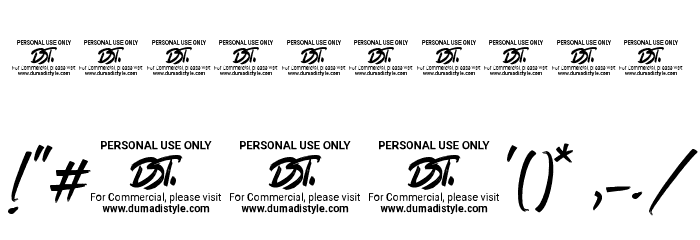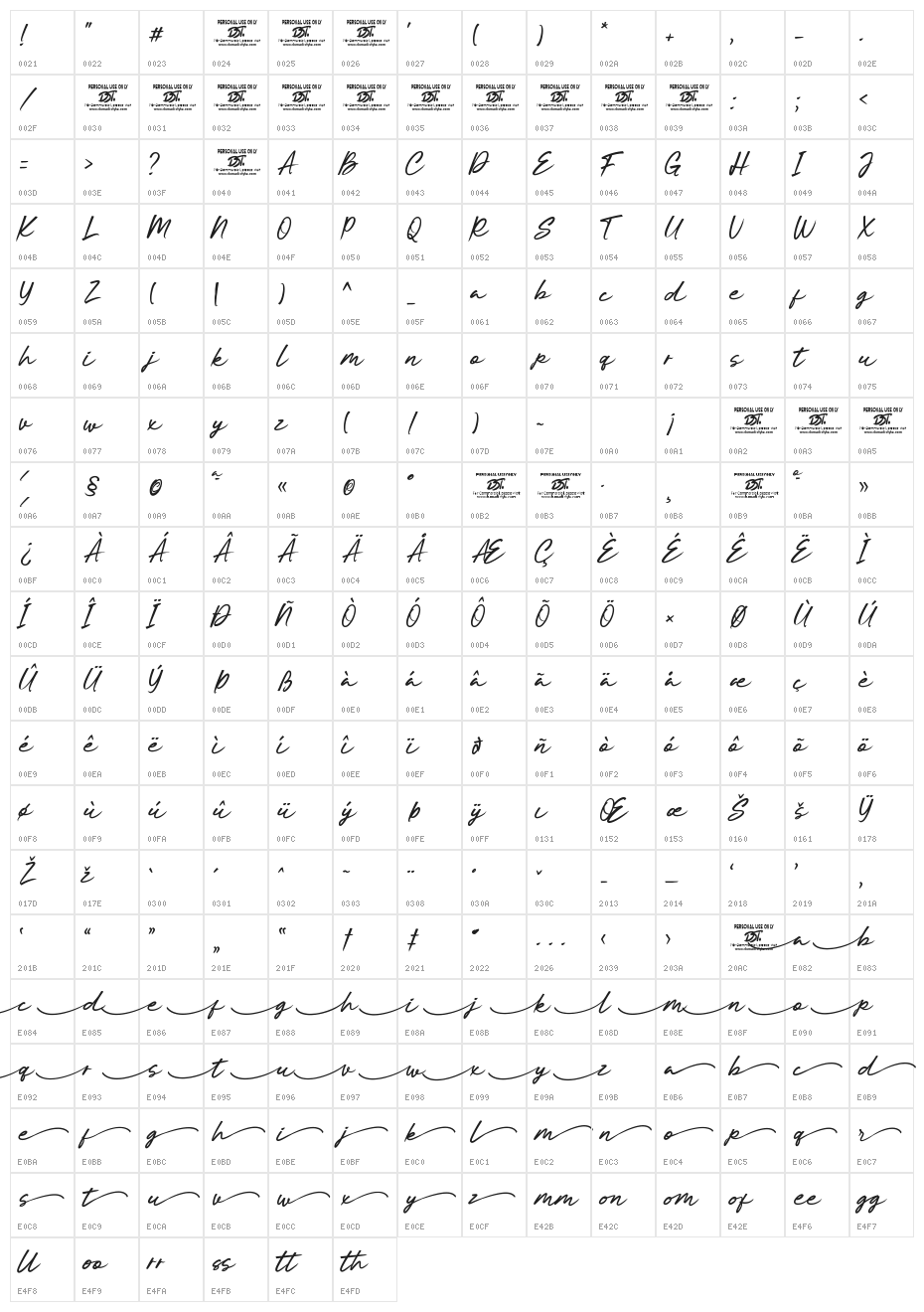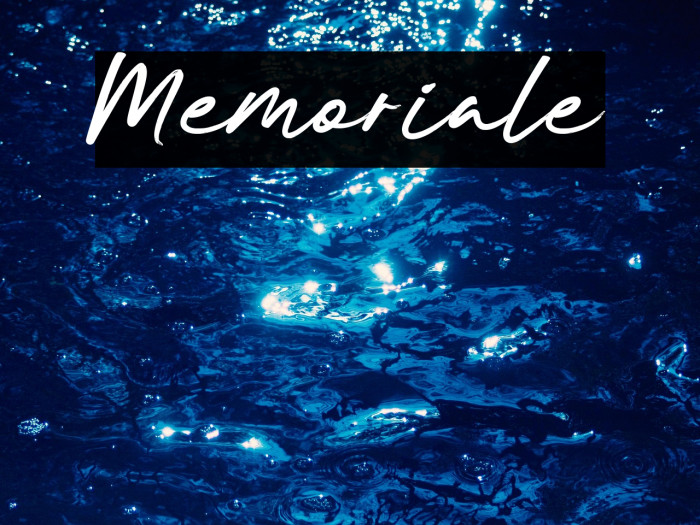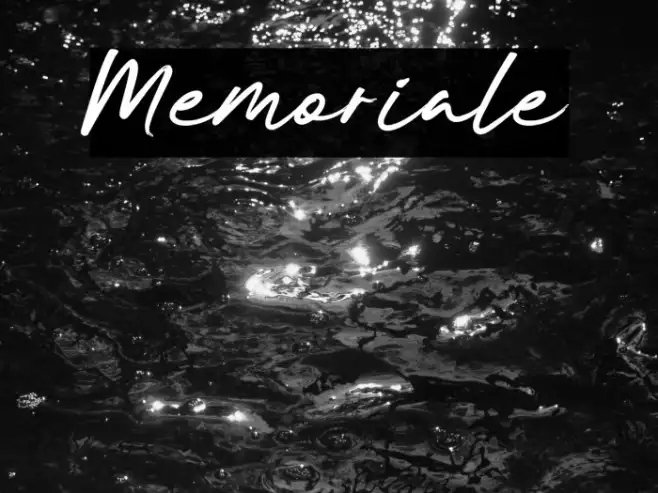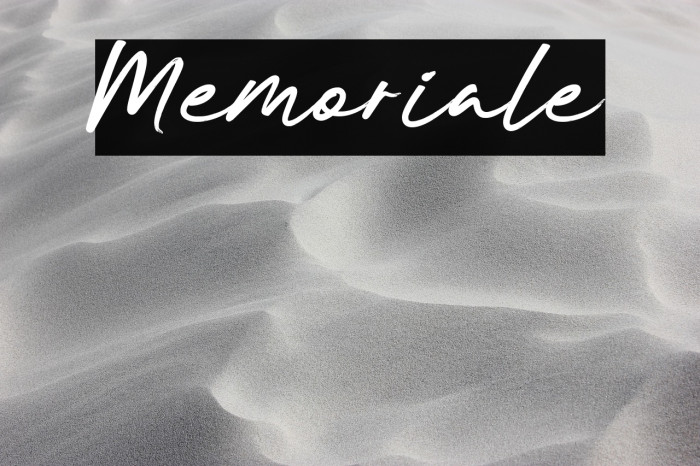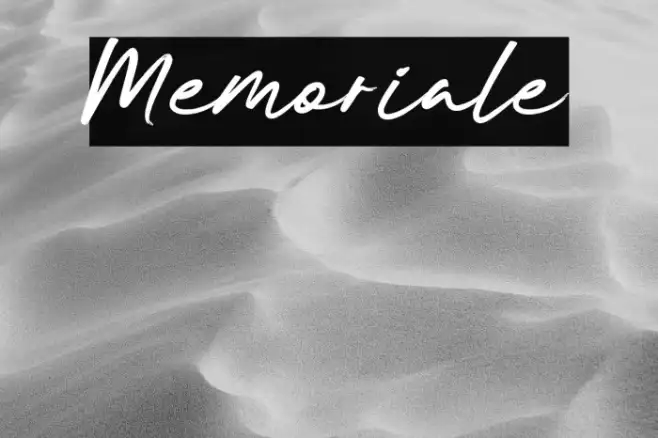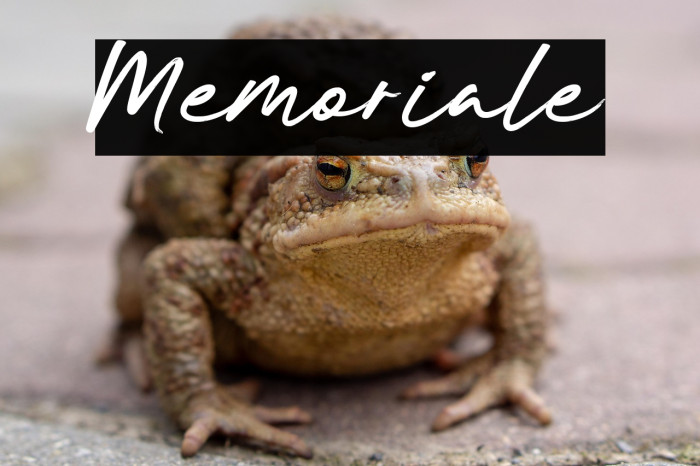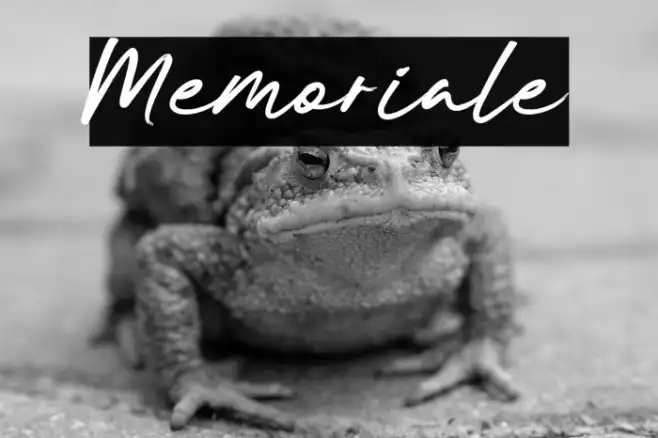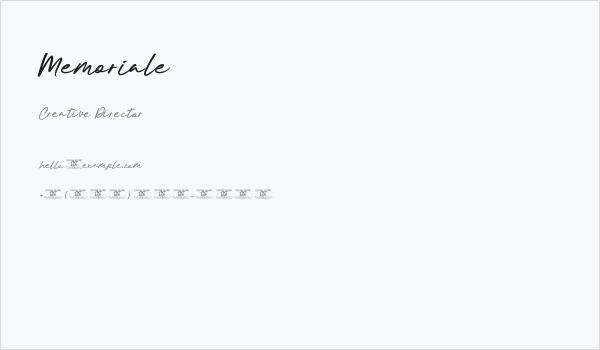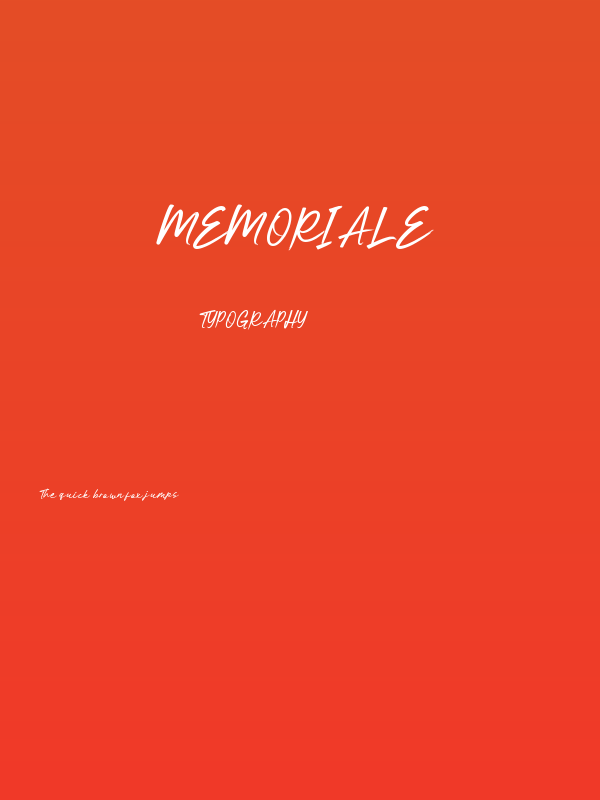
Memoriale Font
Memoriale Description
This font features a flowing, cursive style that mimics elegant handwriting. The letters are connected, creating a seamless and fluid appearance. The uppercase characters are bold and slightly slanted, adding a touch of sophistication. The lowercase letters maintain a consistent style, with smooth curves and a natural flow. The font includes a full set of numerals and a selection of special characters, all designed to complement the overall aesthetic. The strokes vary in thickness, providing a medium contrast that enhances readability while maintaining a stylish look.